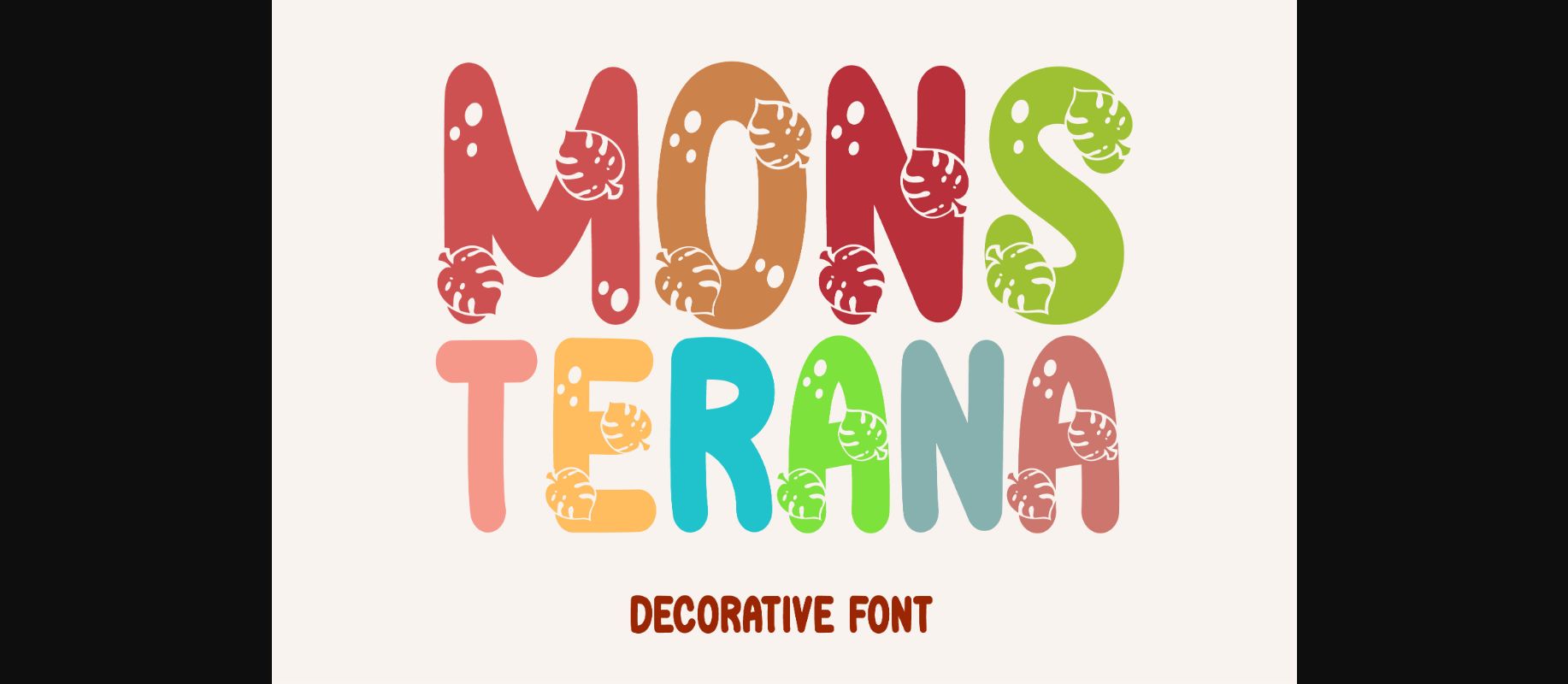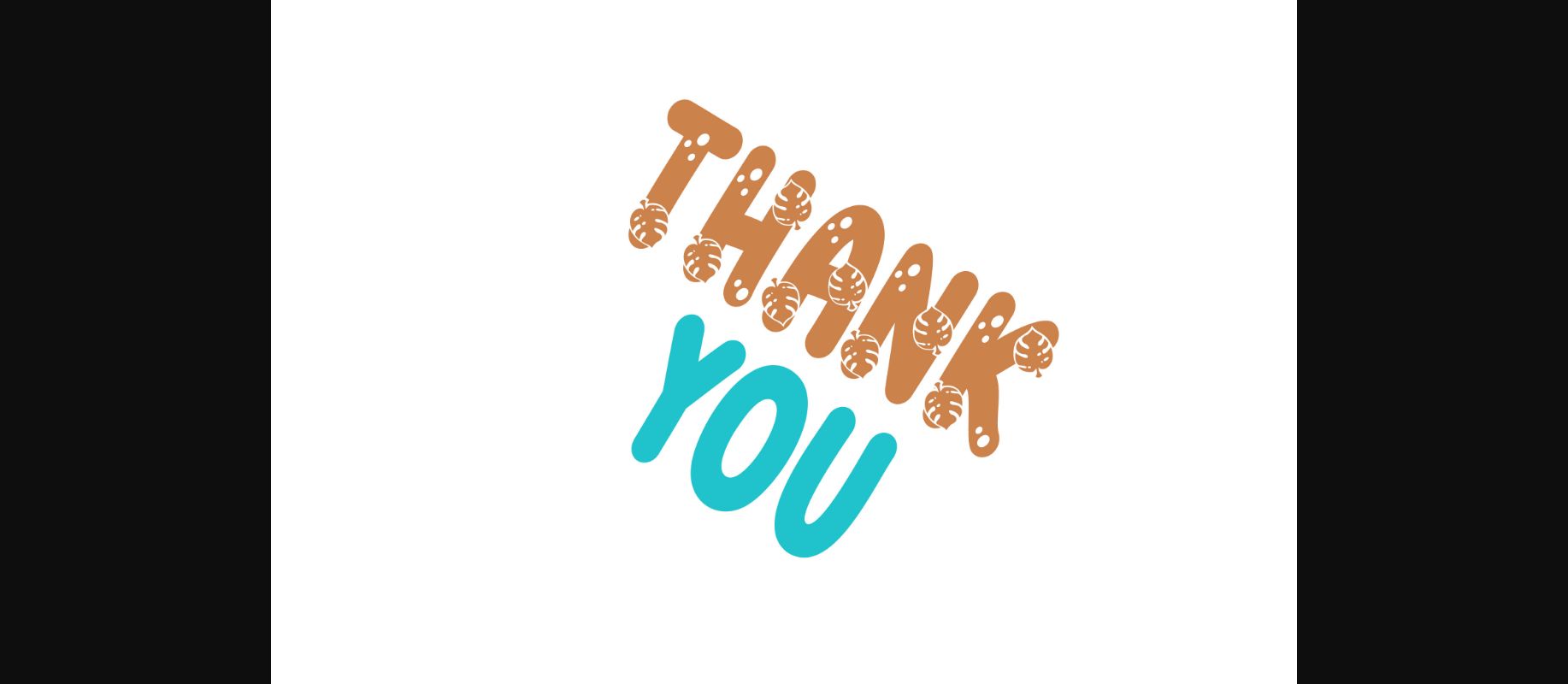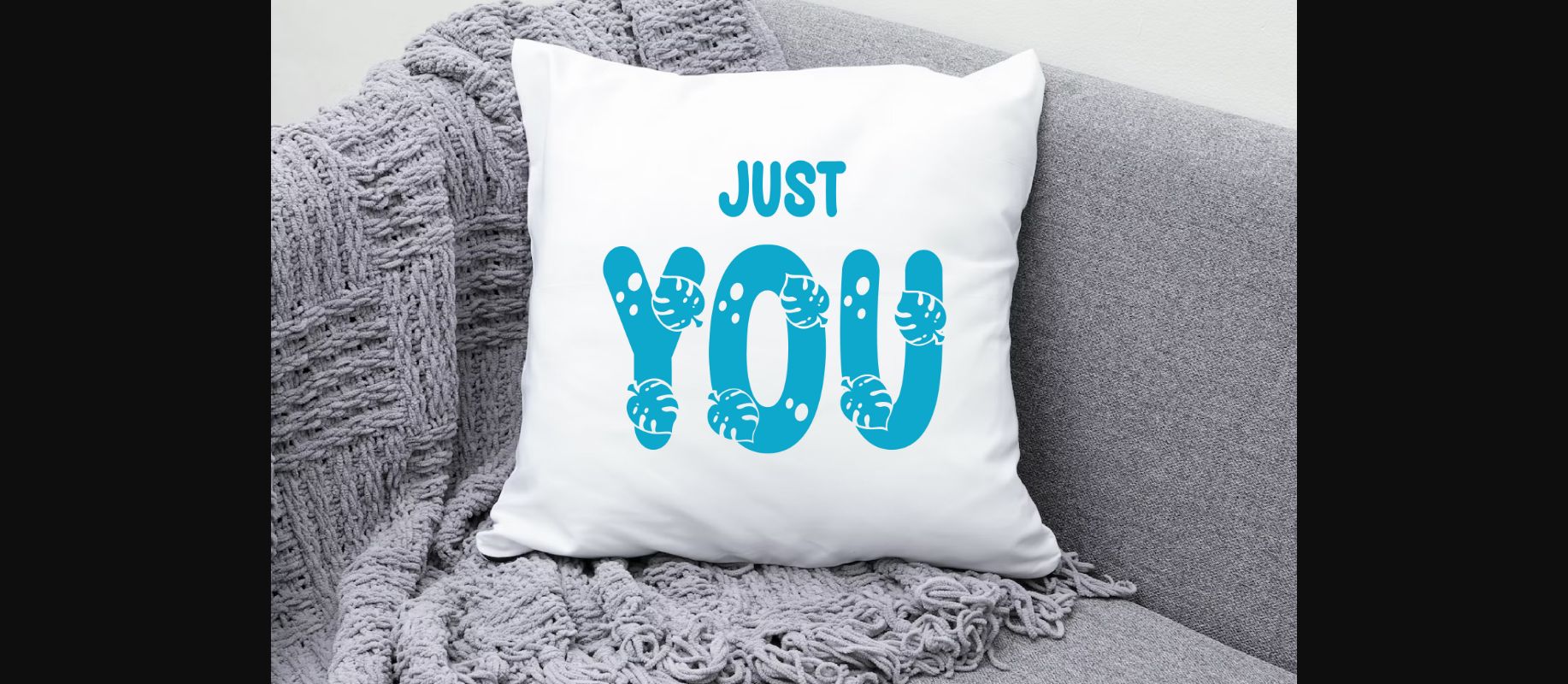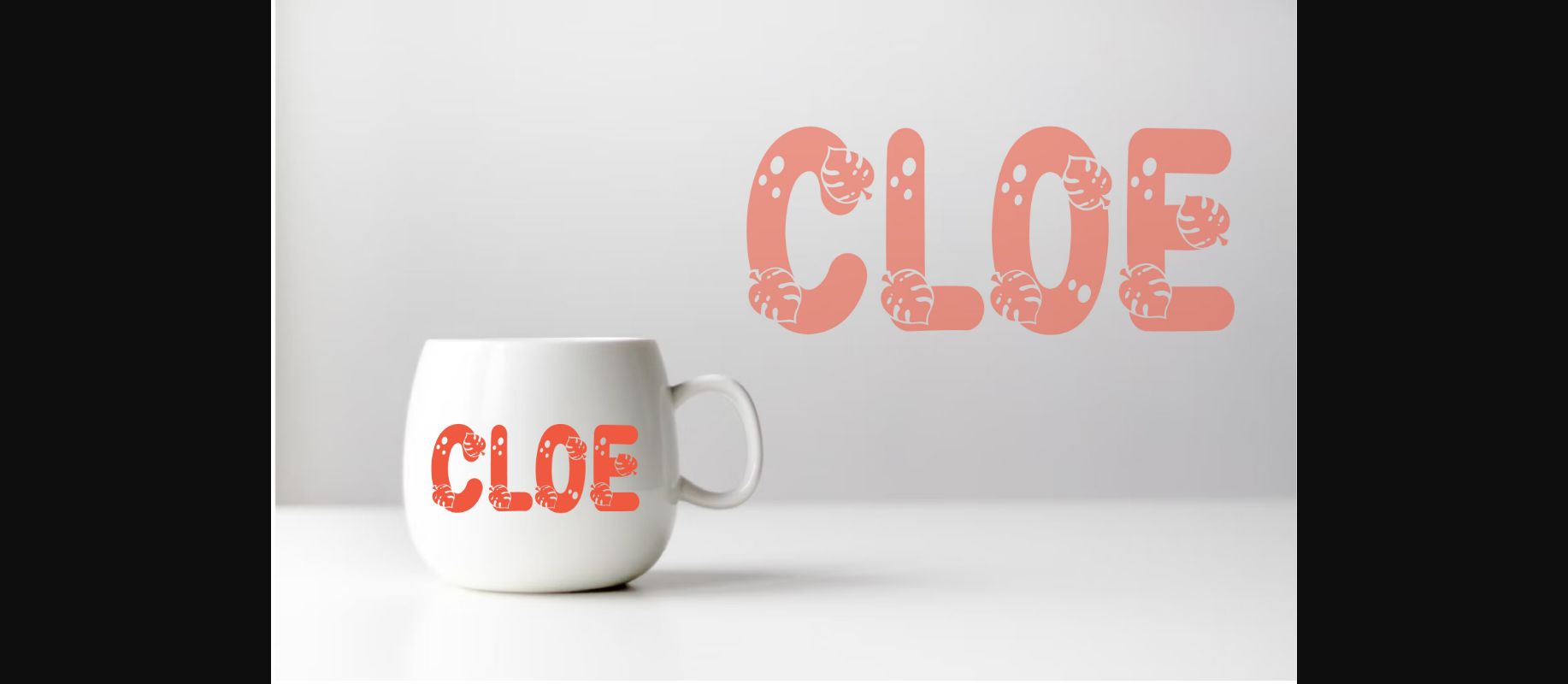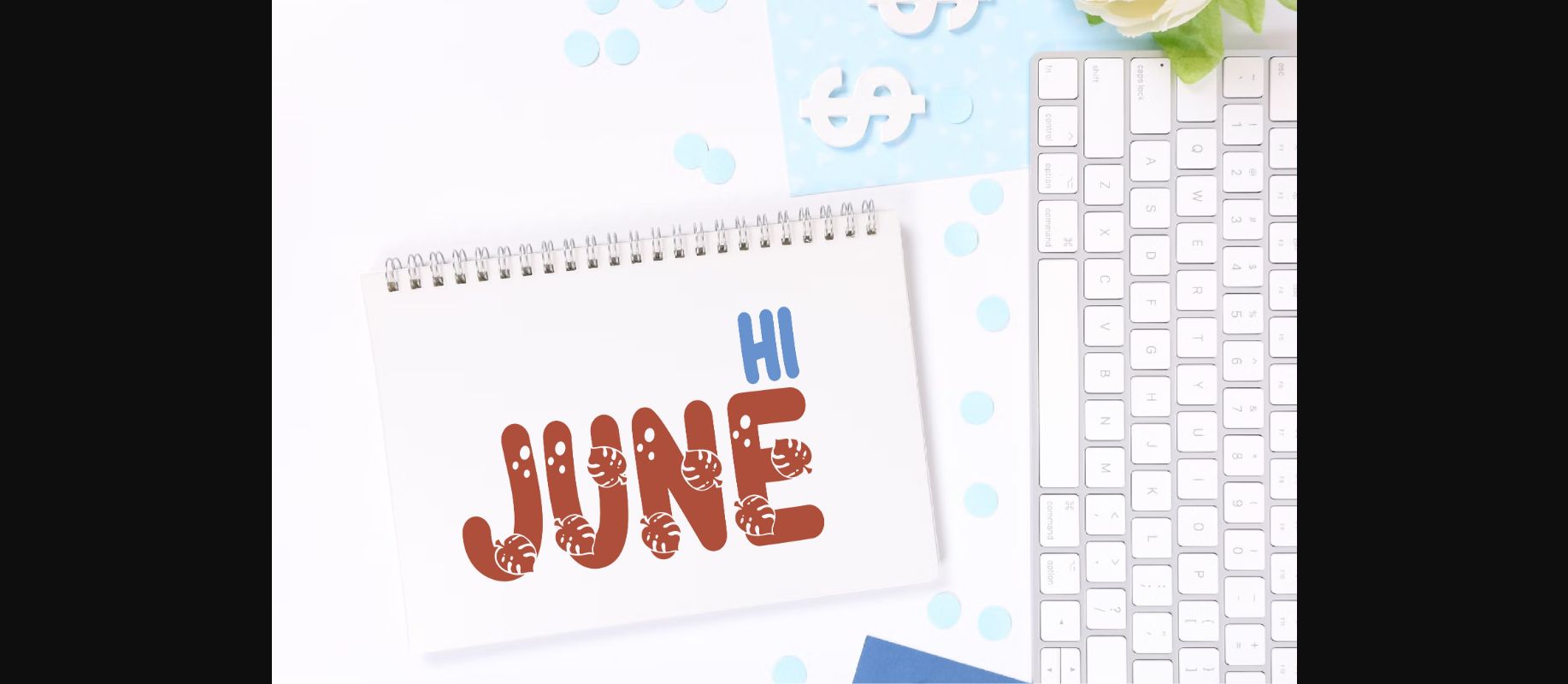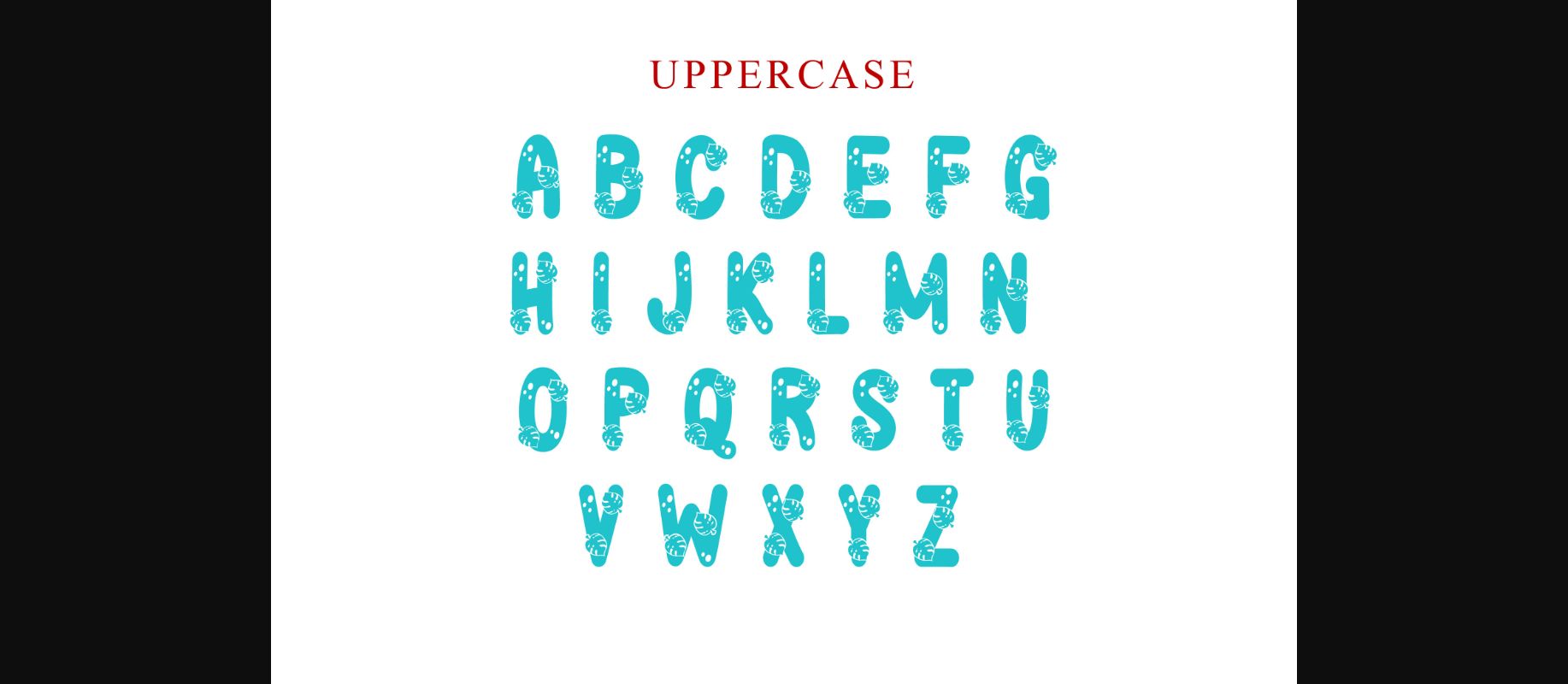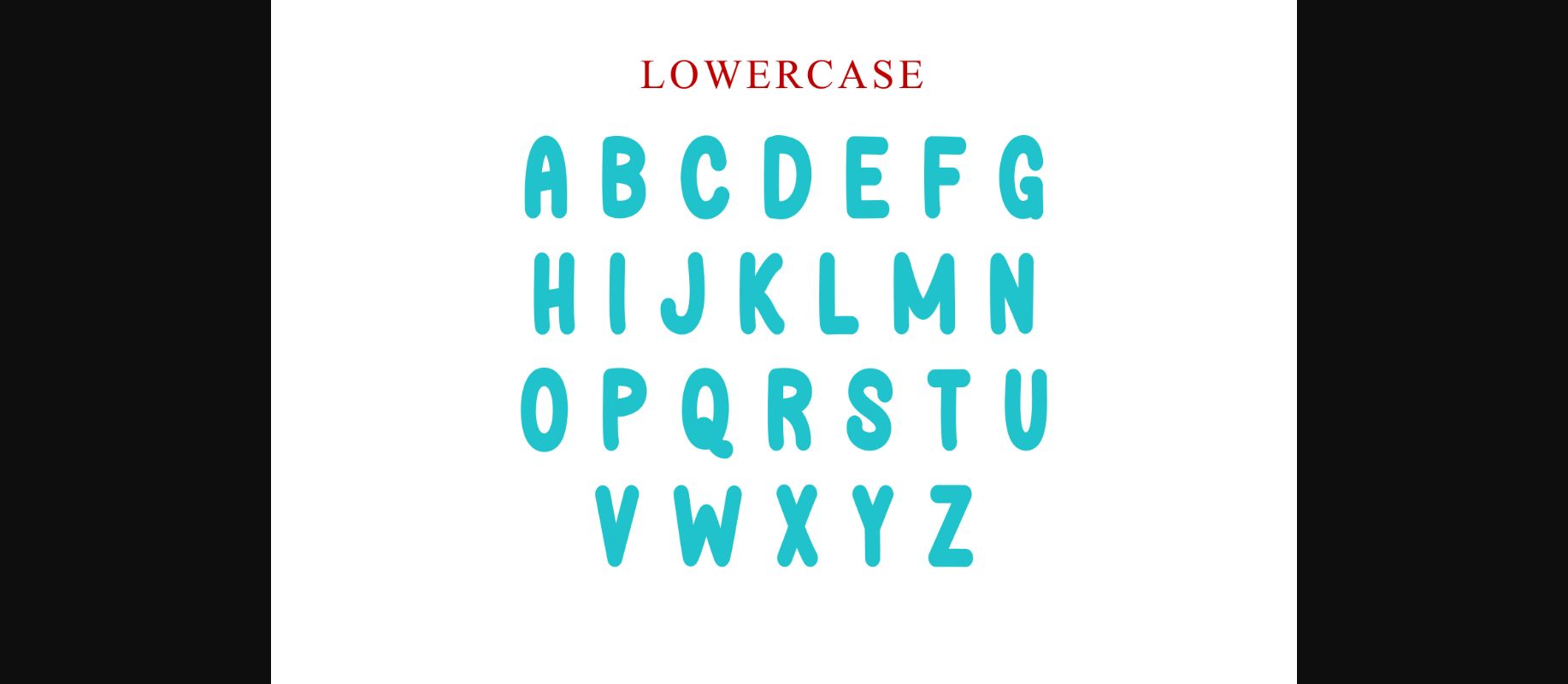
Monsterana Font
About Monsterana Font
Monsterana is a thick lettered and incredibly unique decorative font. It can be used for various design ideas, particularly those related to the Summer season.